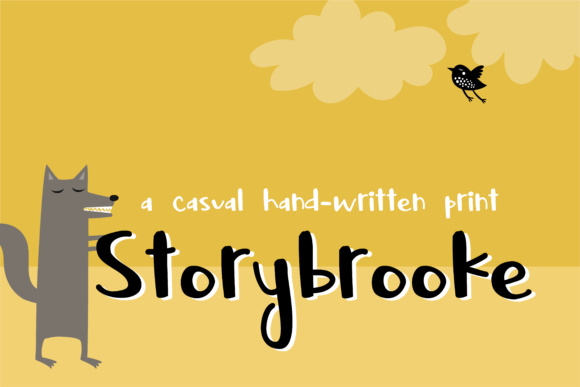
Introducing Storybrooke Font, the ultimate expression of creativity and individuality. Step into a world where handwritten charm meets digital precision, where every letter dances with a youthful zest that's sure to captivate your audience.
Storybrooke's casual, handwritten style exudes a playful, joyous energy that's perfect for adding a personal touch to your projects. Its thick and thin variants create a striking contrast, giving your words a captivating, dynamic look that demands attention. Whether you're a designer, marketer, or simply someone who loves to express themselves throughæ–‡å—, Storybrooke is the font for you.
With Storybrooke, you'll discover a font that's as versatile as it is beautiful. Its playful charm shines through in personal branding, invitations, and social media posts, while its bold personality adds a touch of whimsy to flyers, posters, and packaging. But Storybrooke's talents don't stop there. It's also a master of digital storytelling, effortlessly enhancing e-books, websites, and presentations with its captivating style.
Join the countless creatives who have embraced Storybrooke's magic, transforming their projects into captivating masterpieces. Let your words take center stage with this remarkable font that sparks joy, ignites imaginations, and leaves a lasting impression on all who encounter it.